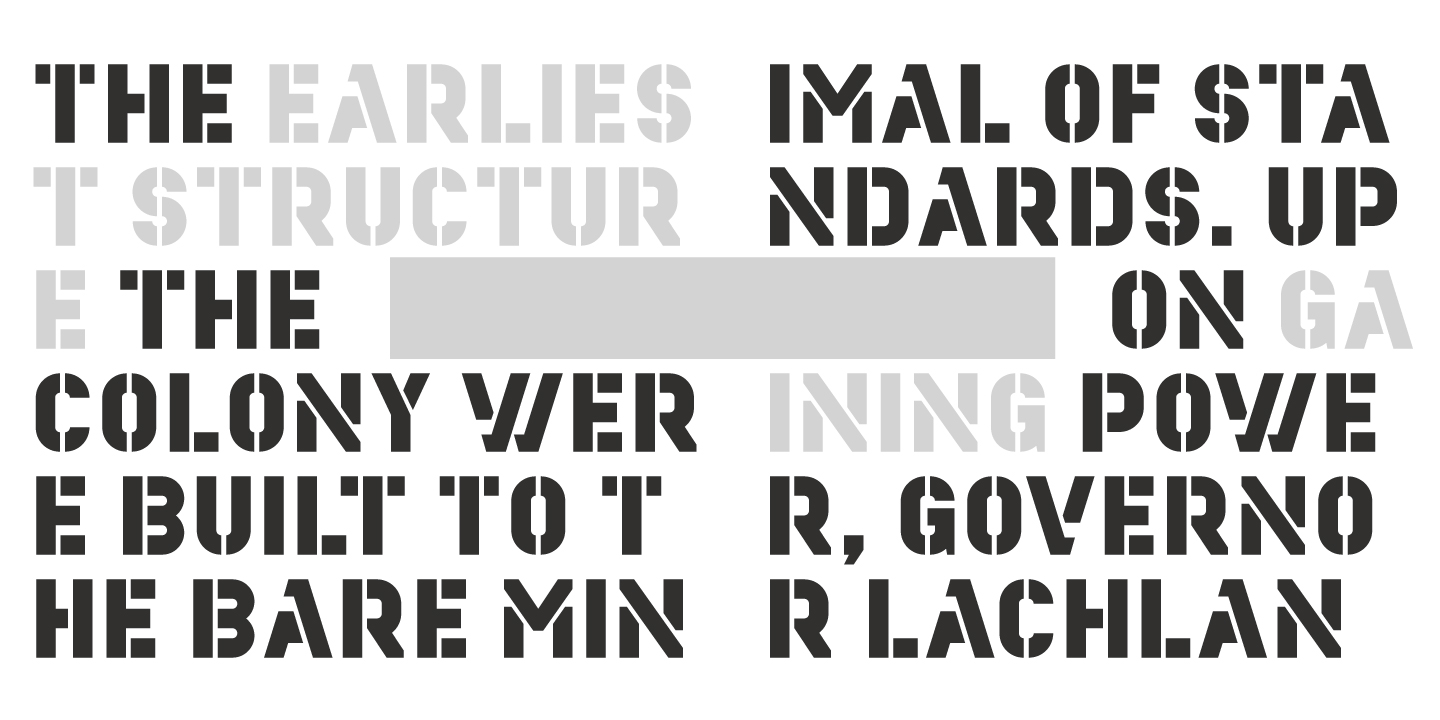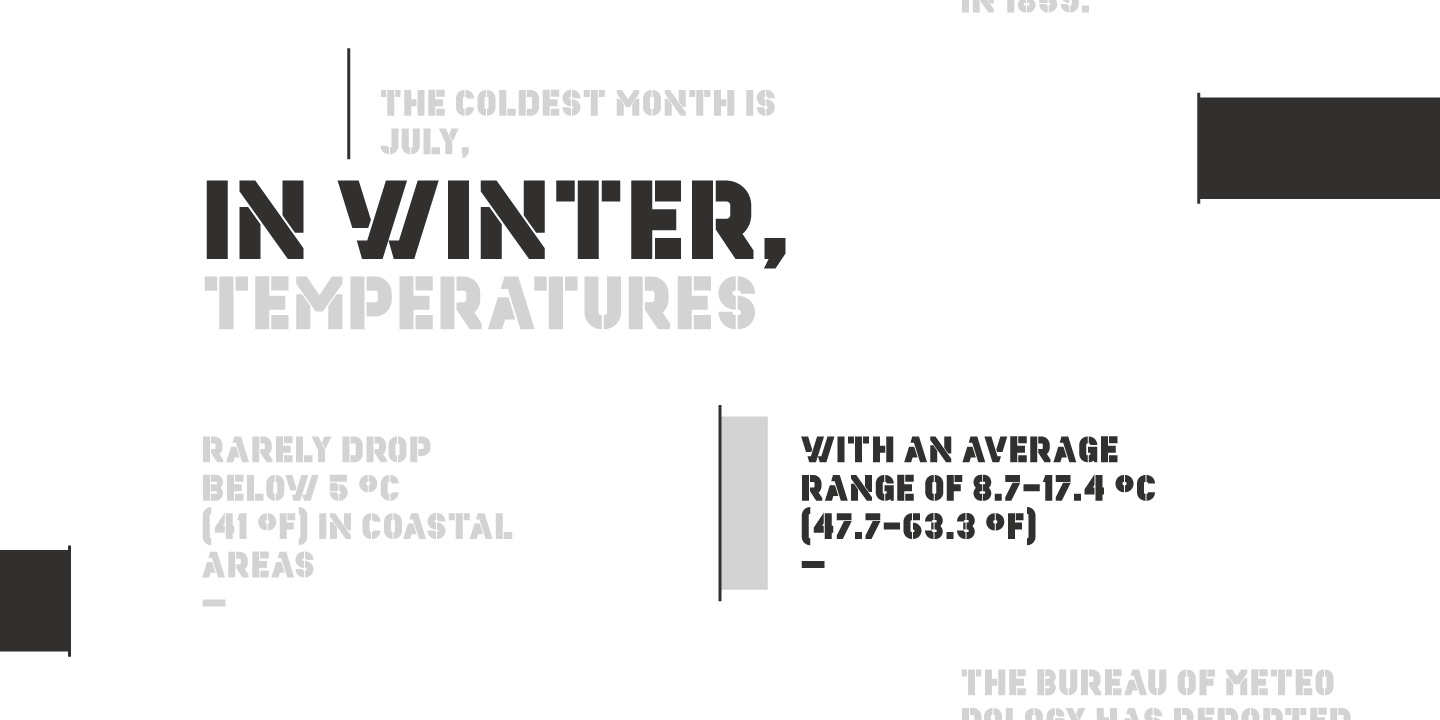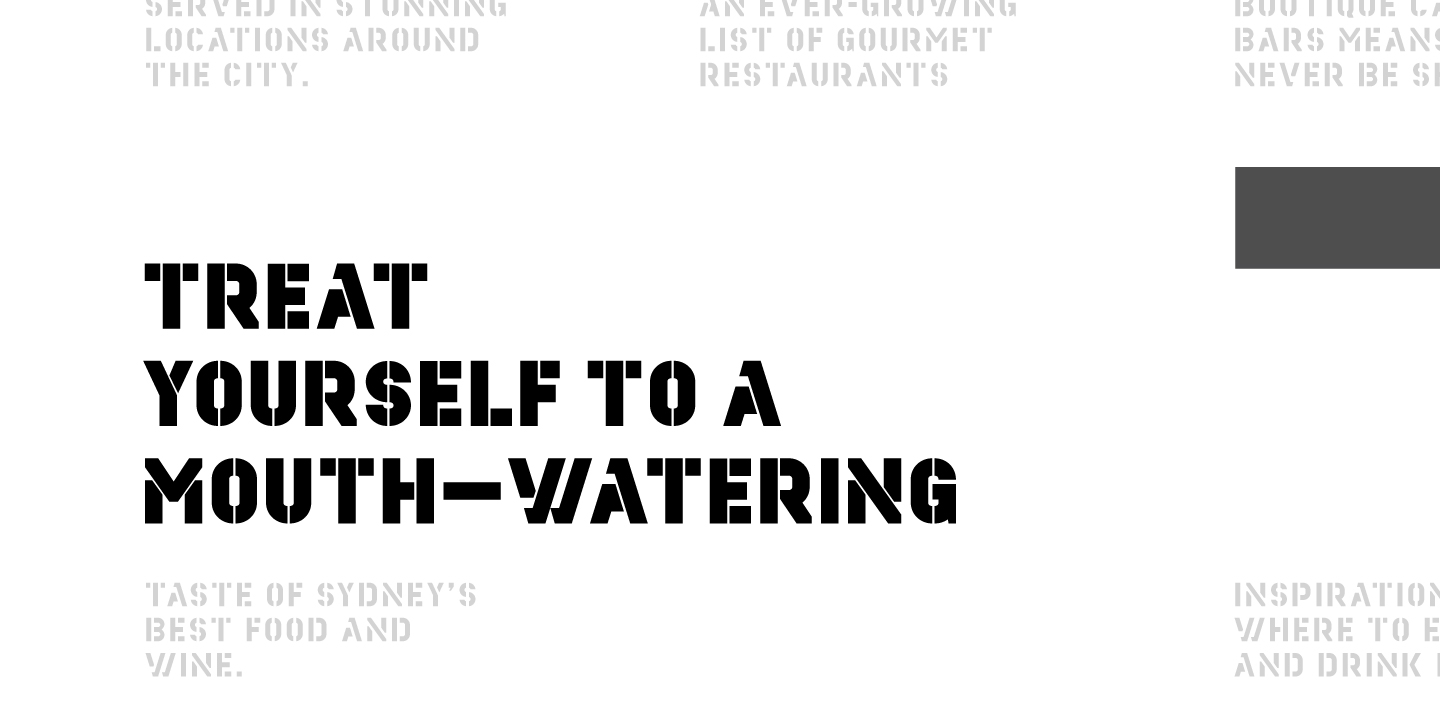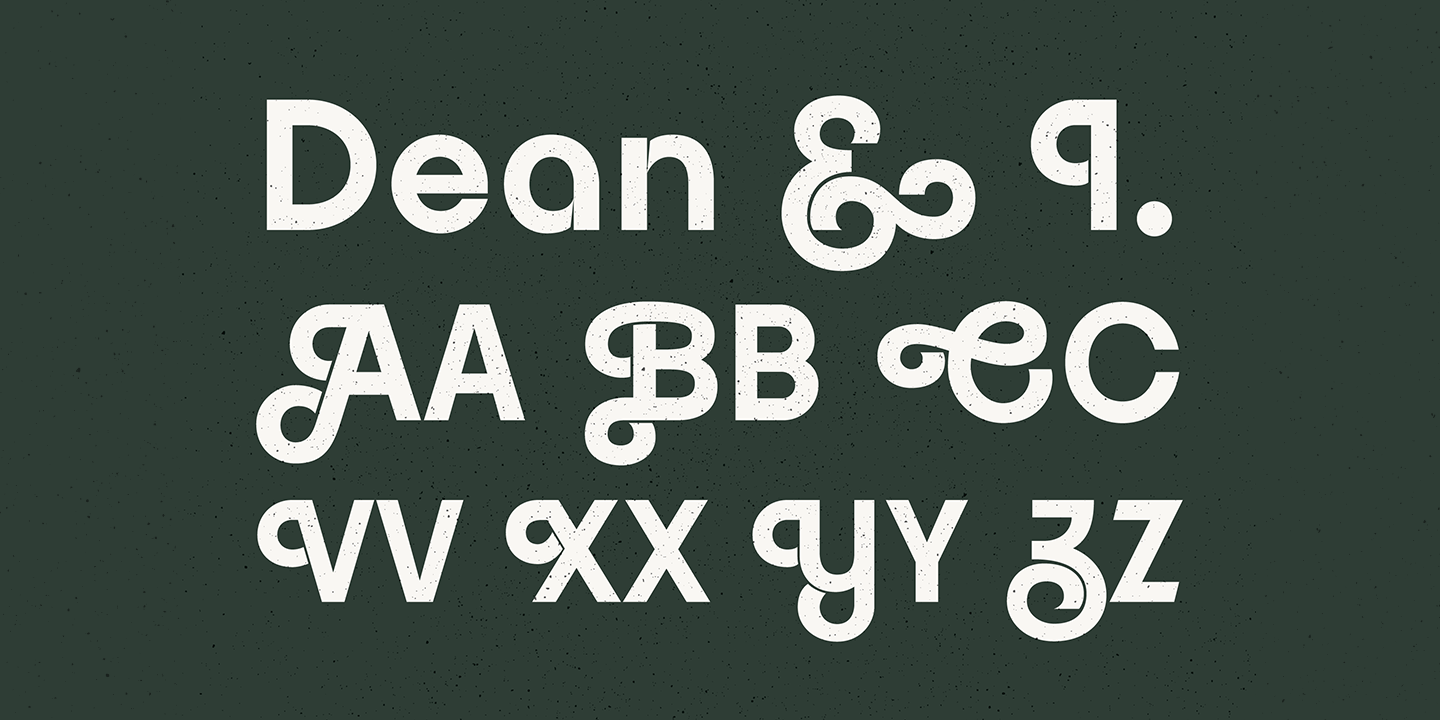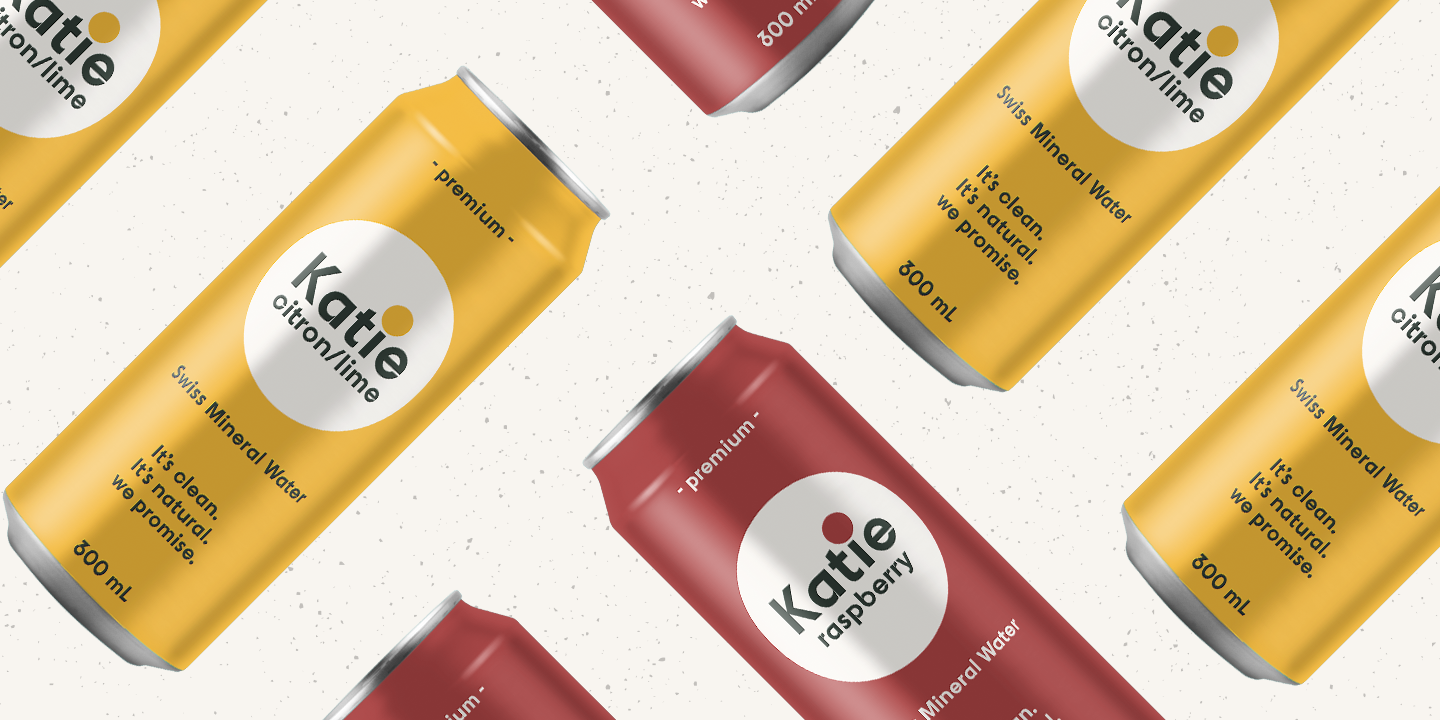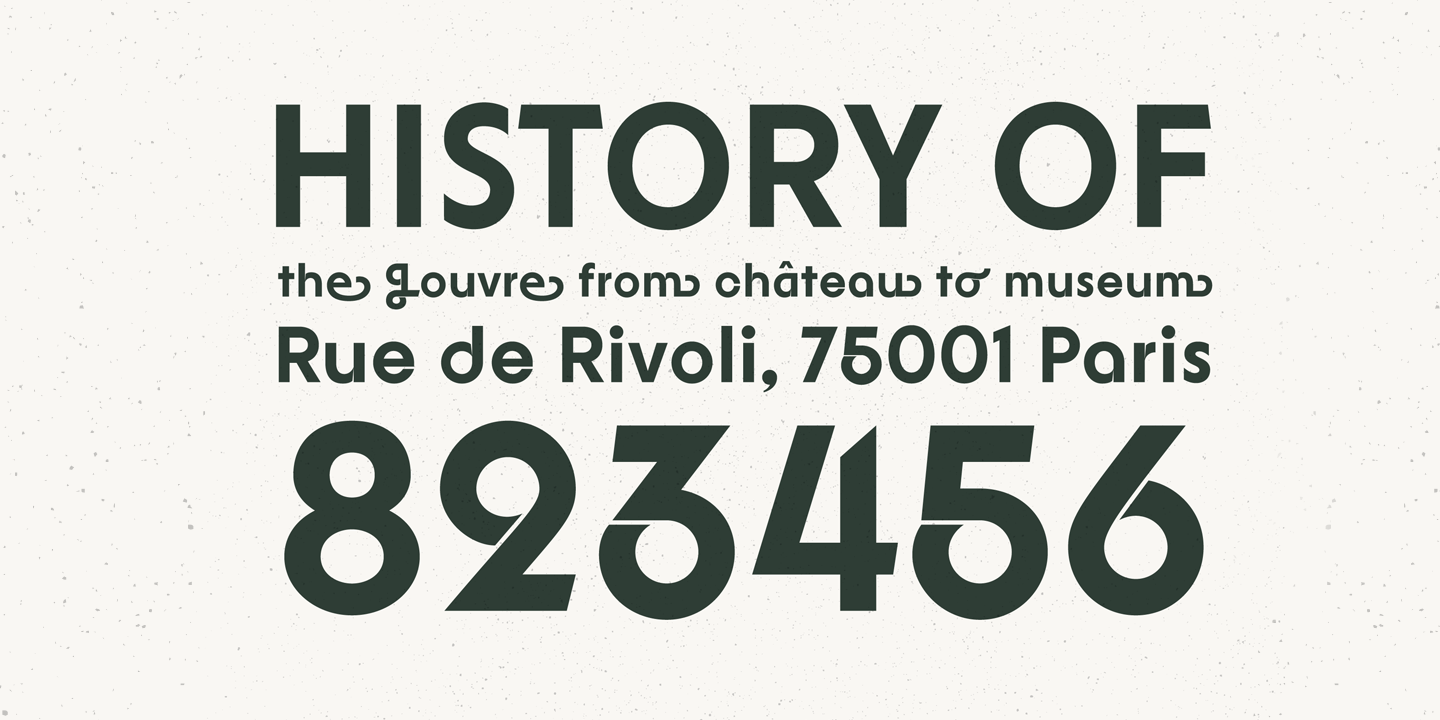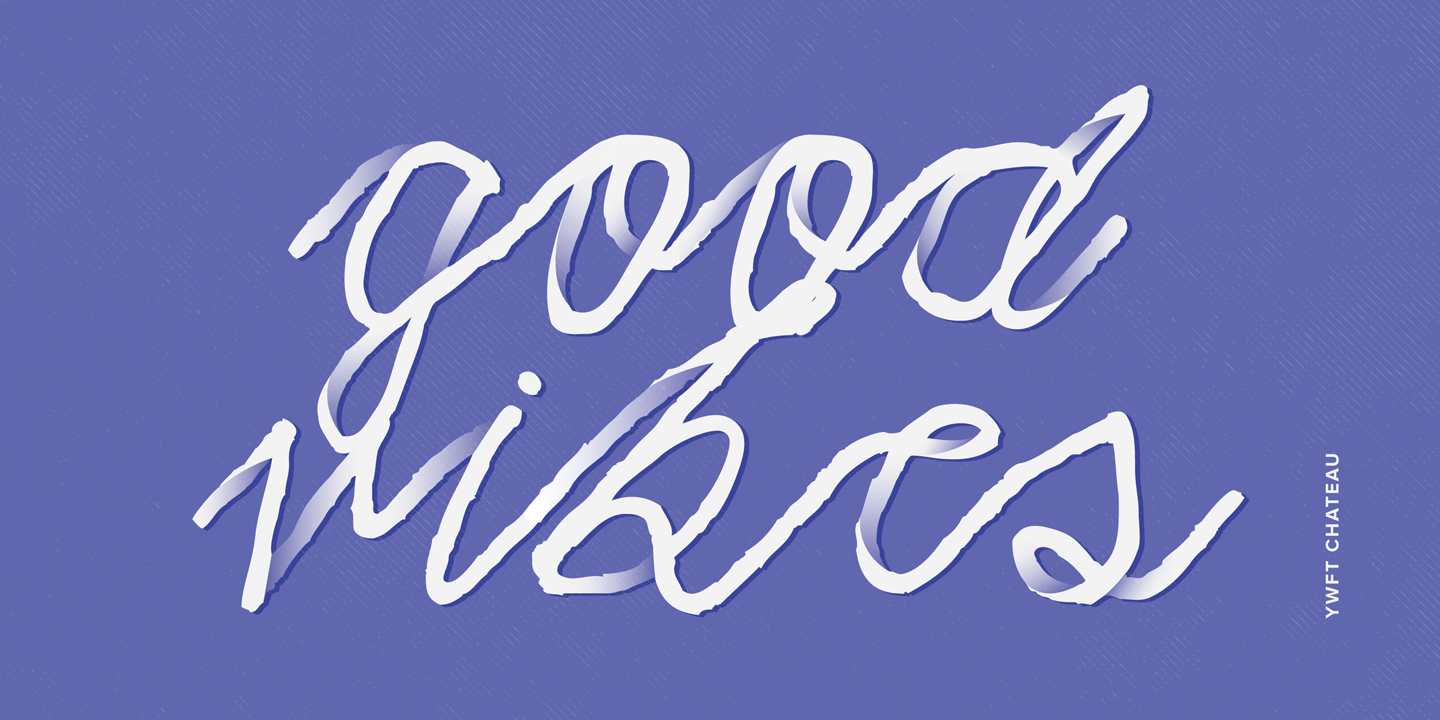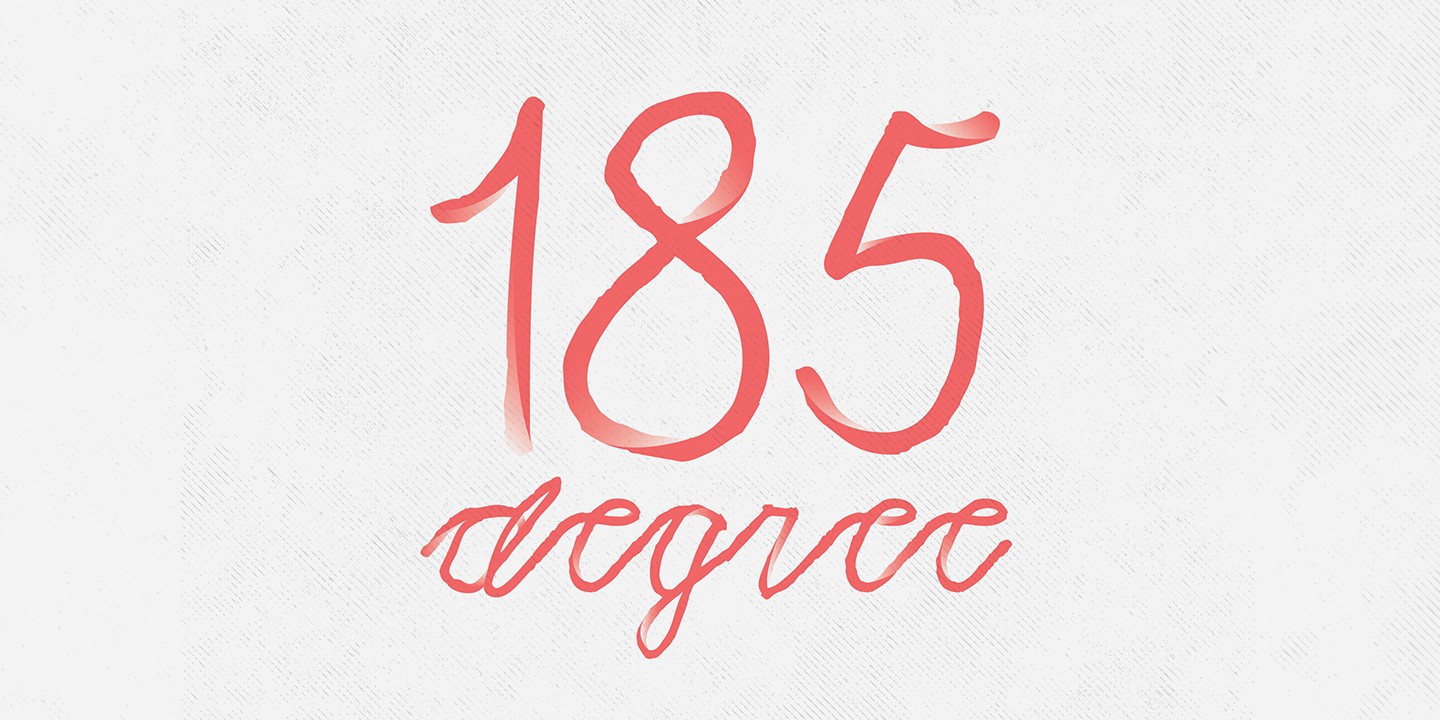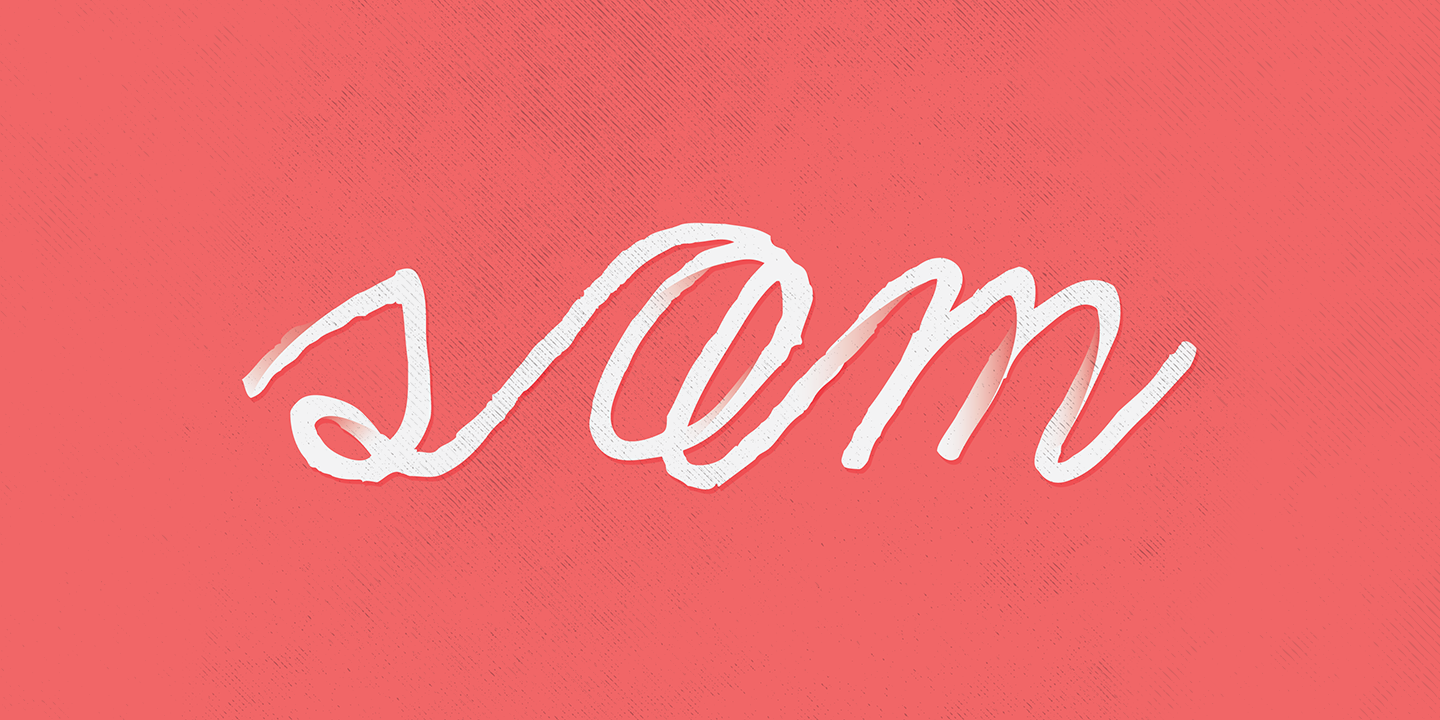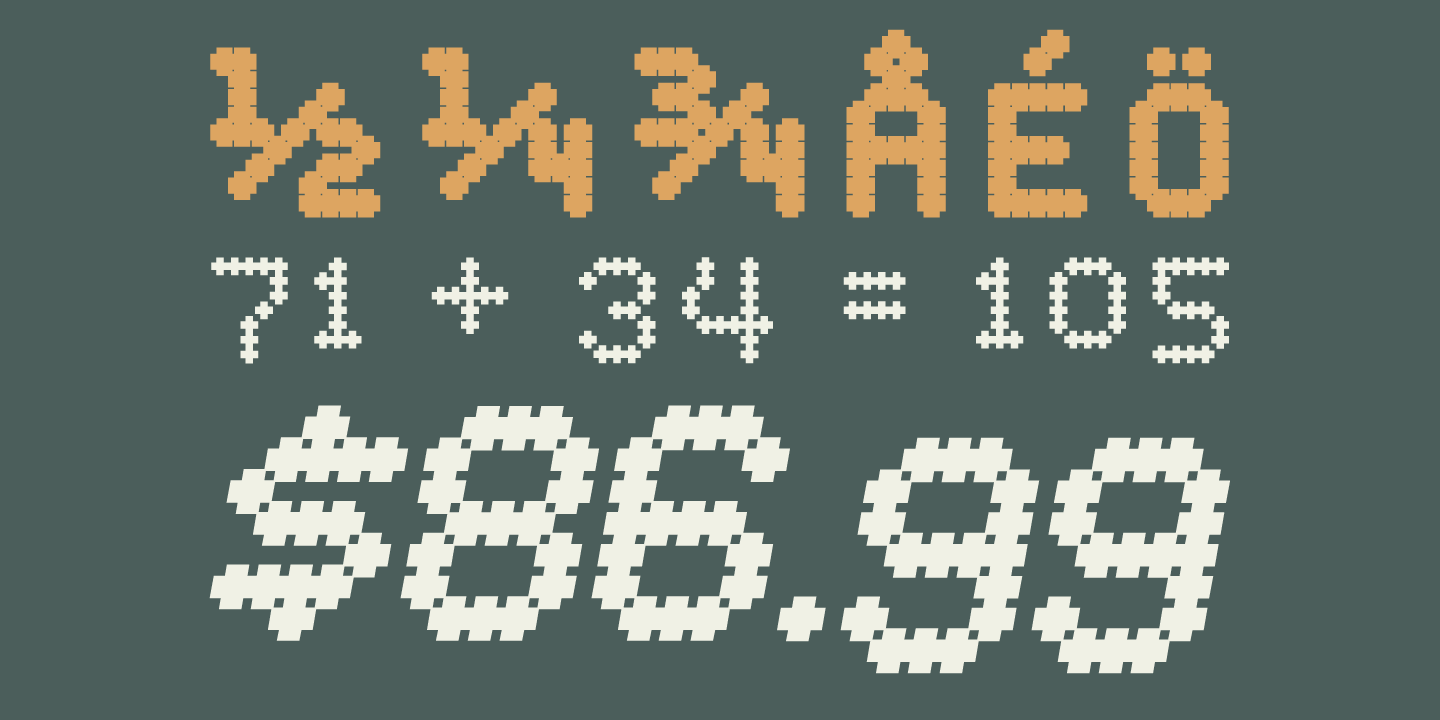
Michael Cina of United States of America
Born: Minneapolis, 1971
Michael Cina has experimented with many forms of design and is well known for his typographic work. Michael also spent many years as an online artist that brought a whole new approach to the way designers looked at the medium of web development, interaction, and motion, and time.
Michael continues to advance his education in design styles such as Bauhaus, Modernism, Swiss, and Constructivism into a warping of abstract complex grids that equal functional design developments.
Mike Cina
Formerly one of the Test Pilot Collective guys, in 2001 Mike started the YouWorkForThem agency and foundry, split between Baltimore and Minneapolis.